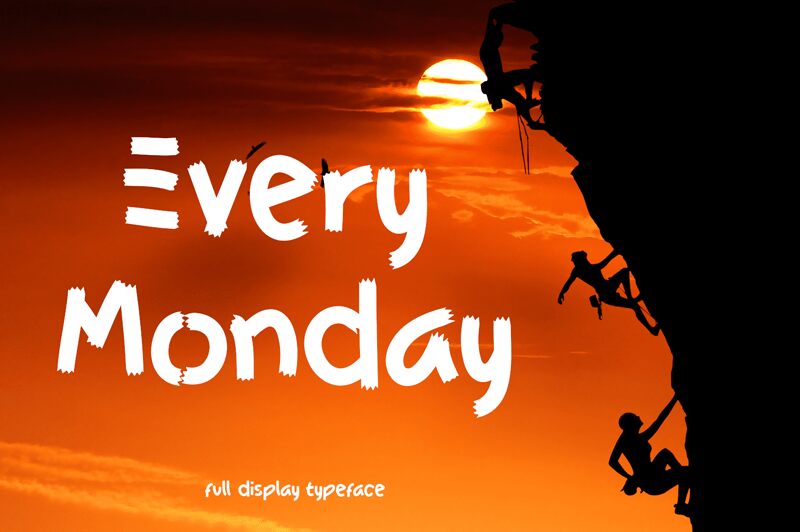
Every_Monday
Every Monday, a vibrant brush font designed by Type Graphy, brings a lively touch to your designs. Its expressive strokes and dynamic curves evoke a sense of energy and creativity, making it perfect for projects that aim to inspire and captivate.
Whether you're designing eye-catching social media graphics, playful logos for children's brands, or trendy apparel prints, Every Monday will add an artistic flair that resonates with your audience.
With its versatility and unique character, this brush font is sure to make every day feel like an extraordinary Monday.